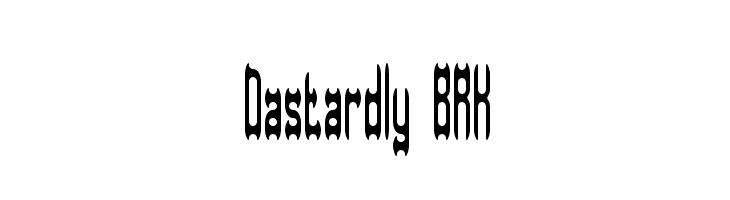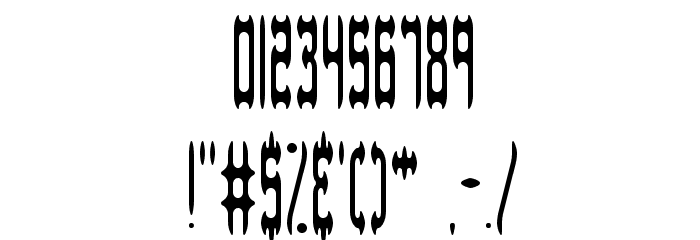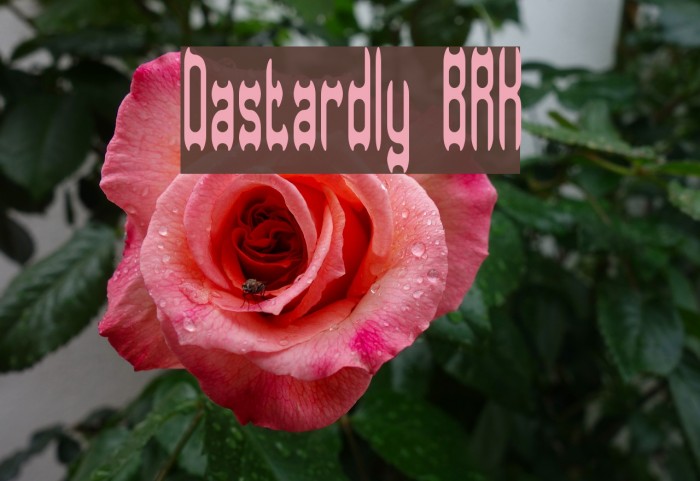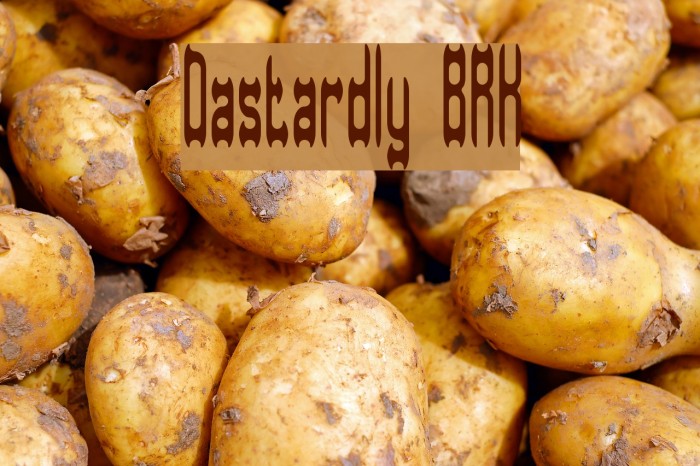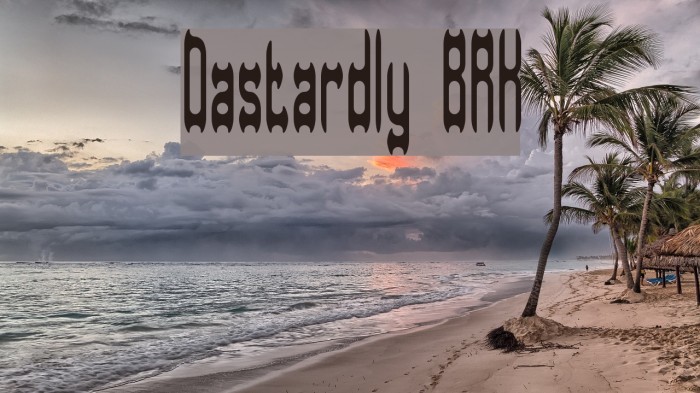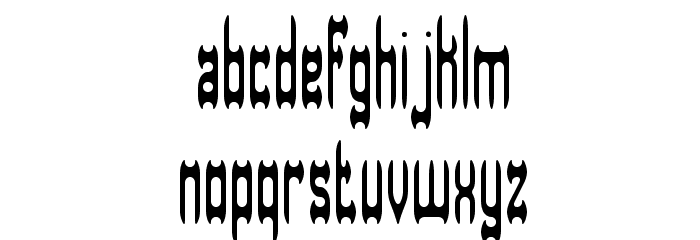
Dastardly BRK Font
Dastardly BRK Description
This font features a unique, playful design with a slightly spooky and whimsical appearance. The characters are tall and narrow, with irregular, wavy edges that give them a dripping effect. This style is reminiscent of classic horror or Halloween themes, making it ideal for creating a sense of mystery or fun. The uppercase and lowercase letters maintain a consistent style, with the uppercase being slightly more pronounced. Numbers and special characters follow the same design principles, ensuring a cohesive look across all text elements.